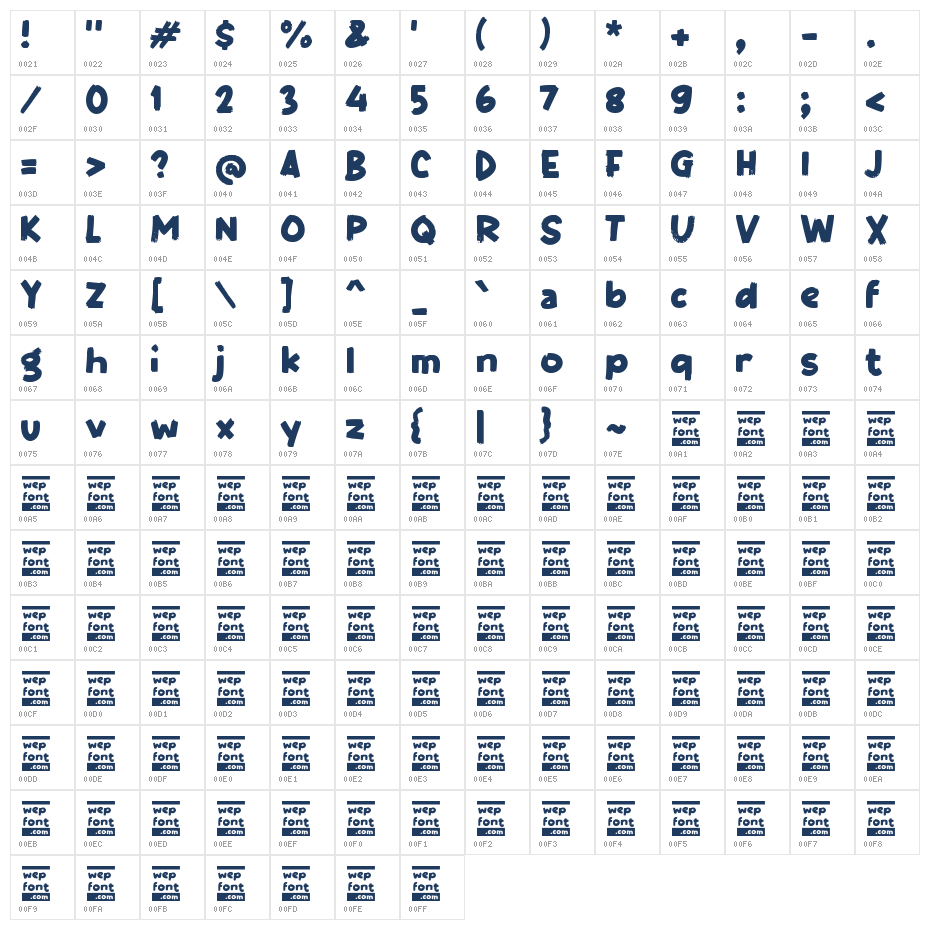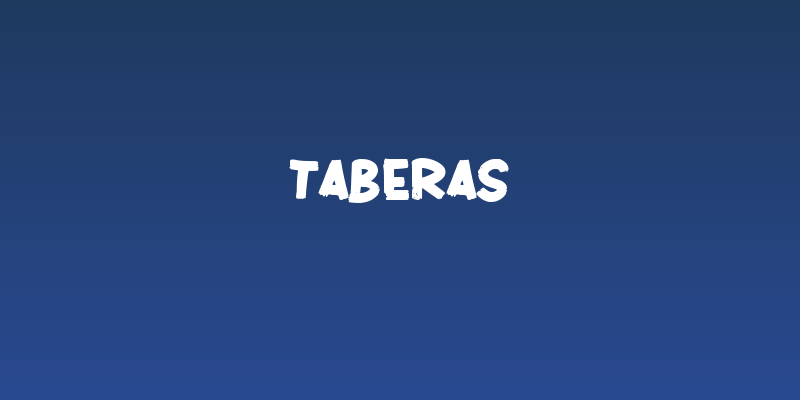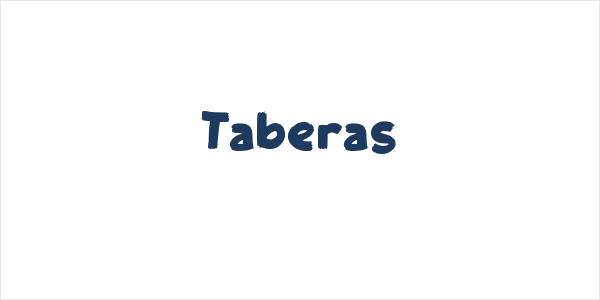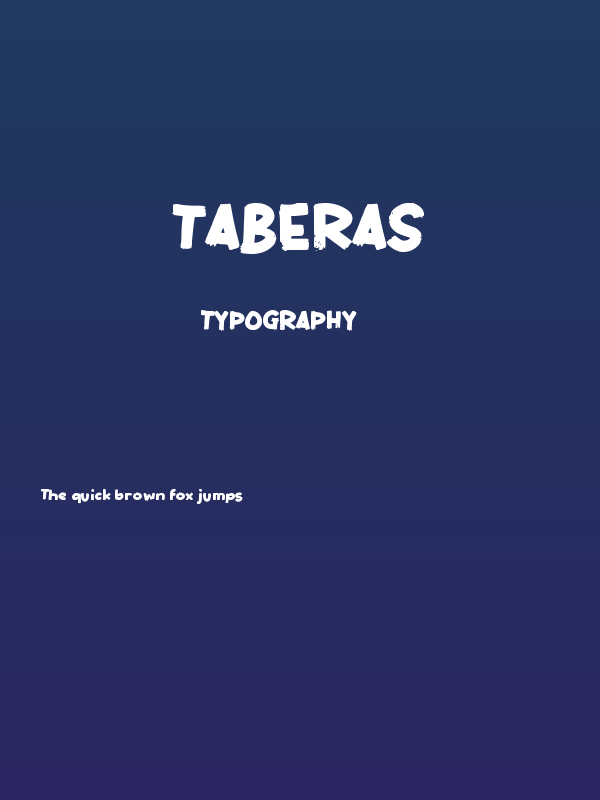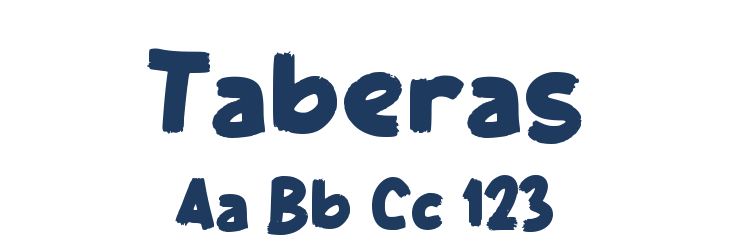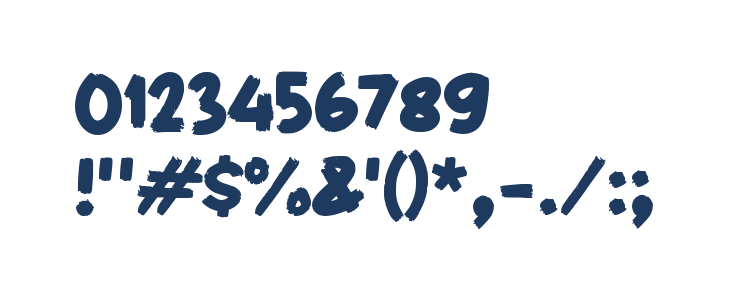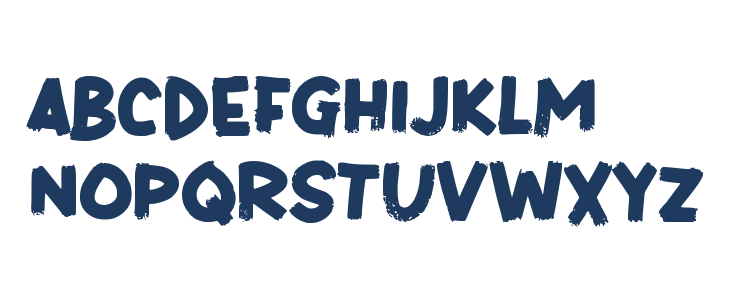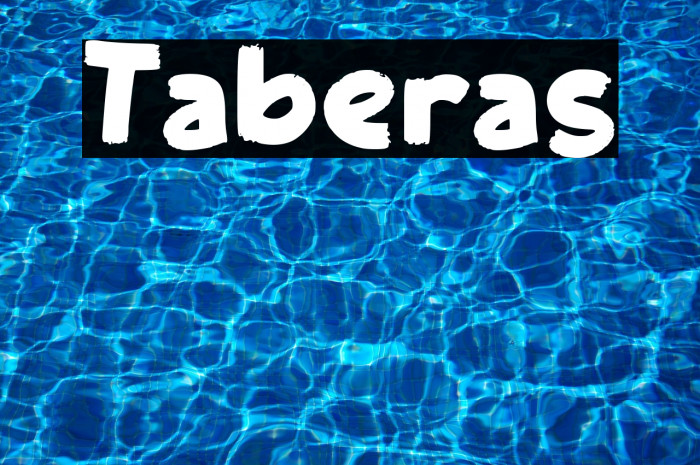
Taberas Font
Taberas Description
Bold, playful, and chunky font with irregular, hand-drawn style characters.
| Overall Style | Playful, Hand-drawn, Casual |
| Use Case | Headlines, Posters, Children's books, Logos |